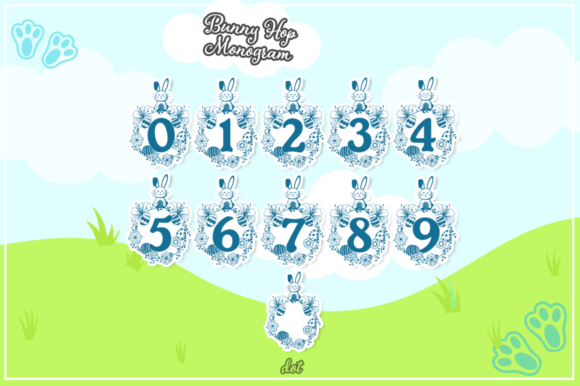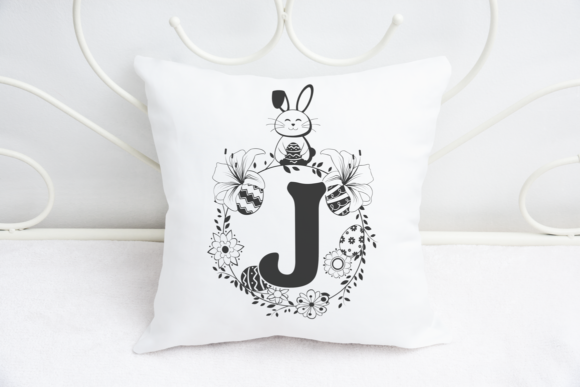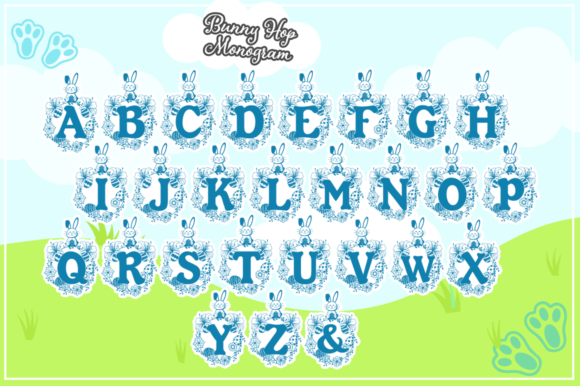
Bunny Hop Monogram Font: The Ultimate Crafting Companion
Are you a crafter looking for the perfect monogram font to elevate your DIY projects? Look no further than the Bunny Hop Monogram Font! This handcrafted font is designed from scratch to provide the best results with minimal difficulty, making it an ideal choice for crafters using Cricut Design Space, Silhouette Studio, ScanNCut, and other major brands.
What Sets Bunny Hop Monogram Font Apart?
The Bunny Hop Monogram Font is unique in its approach to font design. Unlike other fonts that are automatically generated, this monogram font is carefully crafted by hand to ensure that each letter is optimized for cutting. The creator of the font has taken the time to minimize the number of points in each letter, making it easier to cut and weed. This attention to detail results in a font that is not only visually appealing but also practical for use in various crafting projects.
Benefits for Crafters
Crafters who use the Bunny Hop Monogram Font can enjoy several benefits, including:
- Easier Cutting: With fewer points in each letter, cutting and weeding become much simpler and faster.
- Optimized for Major Brands: The font is optimized for use with Cricut Design Space, Silhouette Studio, ScanNCut, and other major brands, ensuring seamless integration into your crafting workflow.
- High-Quality Results: The handcrafted nature of the font ensures that each letter is of high quality, resulting in professional-looking projects.
- Time-Saving: The reduced number of points in each letter means that you can complete your projects in less time, allowing you to focus on other creative endeavors.
Perfect for Various Crafting Projects
The Bunny Hop Monogram Font is versatile and can be used in a variety of crafting projects, including:
- Custom Signs: Create personalized signs with your name or a special message.
- Monogrammed Gifts: Add a touch of elegance to gifts with custom monograms.
- Party Decorations: Use the font to create custom banners, garlands, and other decorations for parties and events.
- DIY Home Decor: Add a personal touch to your home decor with custom monogrammed wall art, cutting boards, and more.
Tips for Using Bunny Hop Monogram Font
To get the most out of the Bunny Hop Monogram Font, here are some tips:
- Choose the Right Size: Ensure that the font is the right size for your project to avoid distortion or loss of detail.
- Experiment with Colors: Try out different colors and combinations to add visual interest to your projects.
- Combine with Other Fonts: Mix and match the Bunny Hop Monogram Font with other fonts to create unique and eye-catching designs.
The Bunny Hop Monogram Font is a valuable addition to any crafter’s toolkit. Its handcrafted design, optimized for major brands, and ease of use make it an ideal choice for a wide range of crafting projects. Whether you’re a seasoned crafter or just starting out, this font is sure to elevate your DIY projects and help you achieve professional-looking results with minimal difficulty.